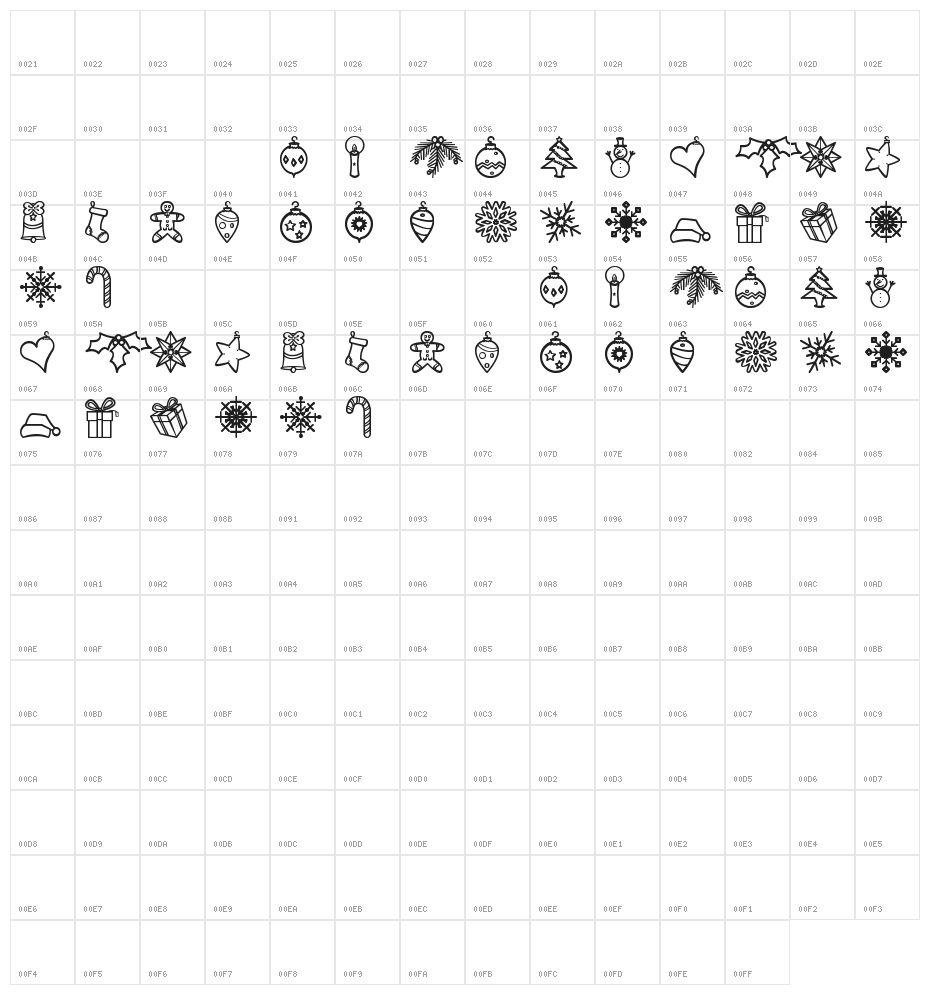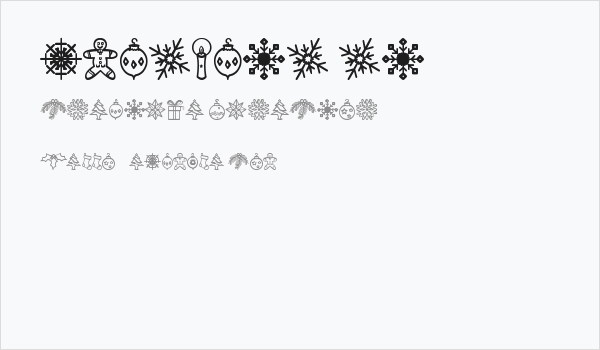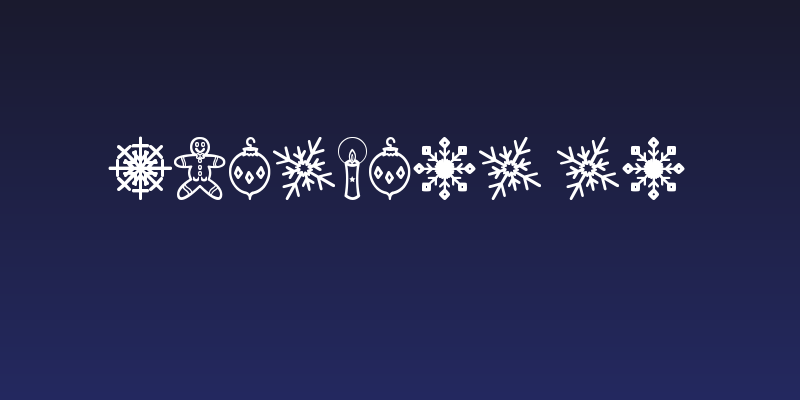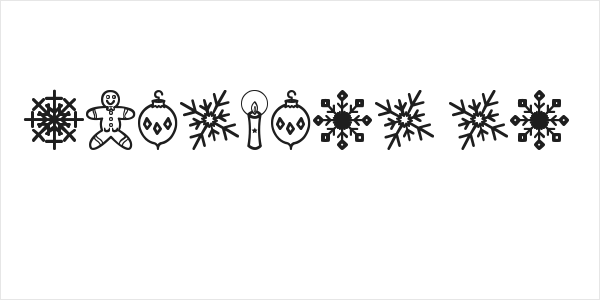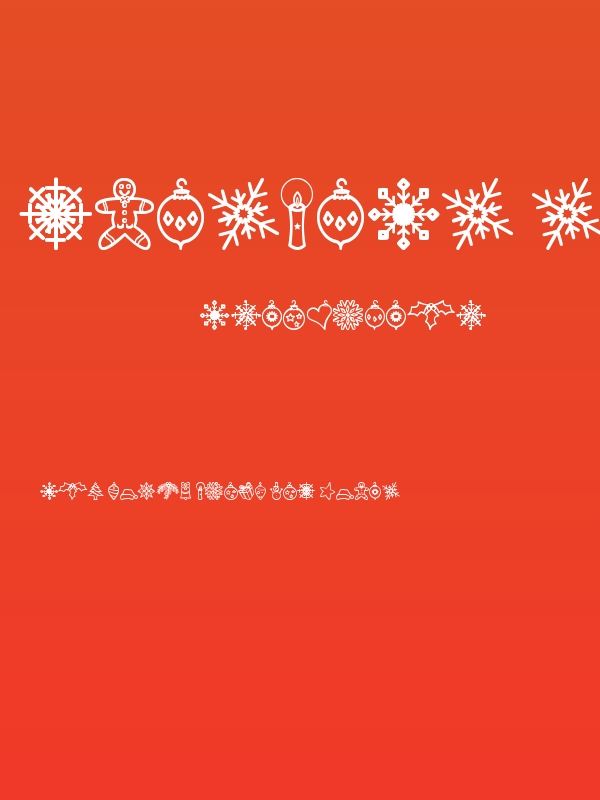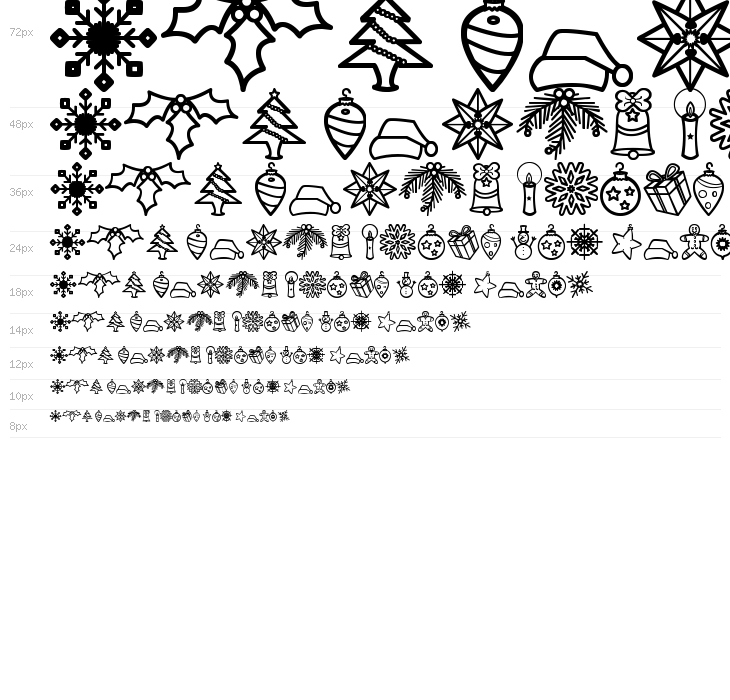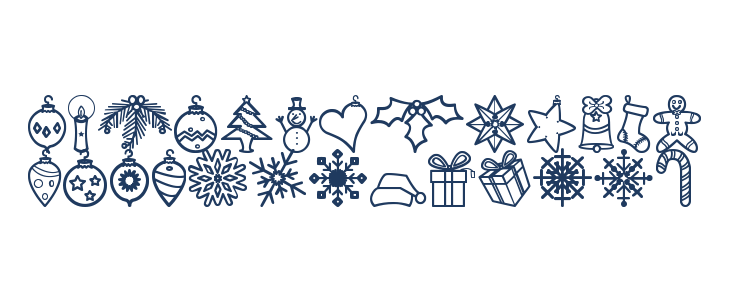
Xmasbats St Font
Xmasbats St Description
This is a decorative font featuring a variety of Christmas-themed icons. Each character is represented by a unique festive symbol, such as ornaments, snowflakes, Christmas trees, snowmen, stars, and other holiday-related imagery. The icons are outlined and have a playful, whimsical style that captures the essence of the holiday season. This font is perfect for adding a festive touch to any project, with its clear and easily recognizable symbols that convey a sense of joy and celebration.
| Use Case | Logos, Headlines, Decorative elements |
| Proposed Projects | Ideal for holiday greeting cards, festive invitations, Christmas-themed posters, and seasonal decorations. |